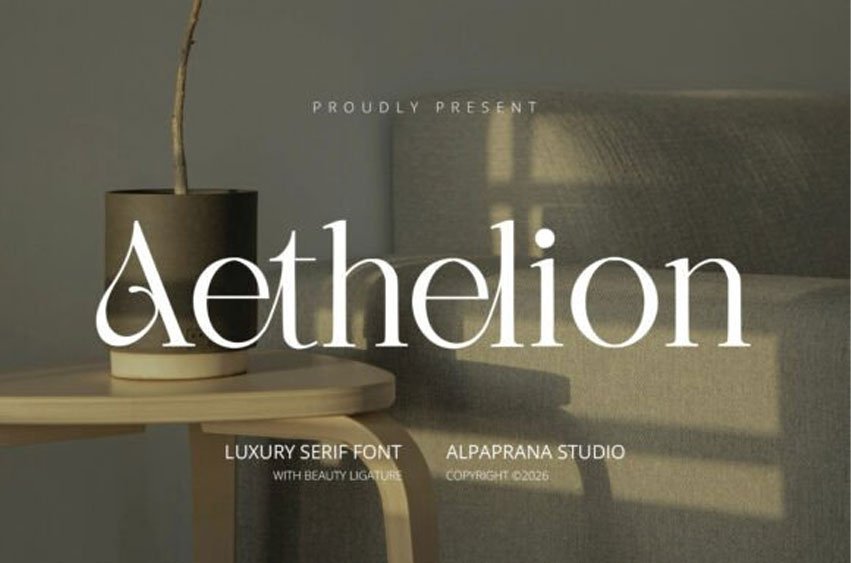
Aethelion Font
Aethelion Font is serif font with modern feels. It will be perfectly used for Branding, Logo Design, Lettering, Logotype, Clothing, Poster, magazine, packaging, posters, shopping bags, t-shirts, book covers, photography, special events and other design project.
Features :
– Uppercase & Lowercase
– Numerals
– Punctuations (OpenType Standard)
– Accents (Multilingual Characters)
– Ligatures and Alternative Style Stylistic Set